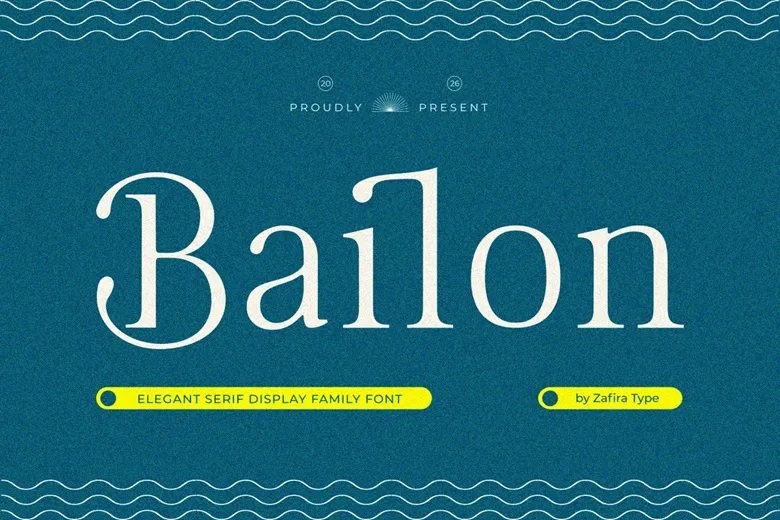
Bailon Font
Bailon is a modern serif font family that adds an elegant, bold, and professional look to any design project. It combines classic style with a modern feel, making it a flexible choice for both print and digital work.
With 9 weights, from delicate Thin to strong Black, Bailon gives you the freedom to create clear, consistent, and eye-catching text layouts.
Bailon Serif Font